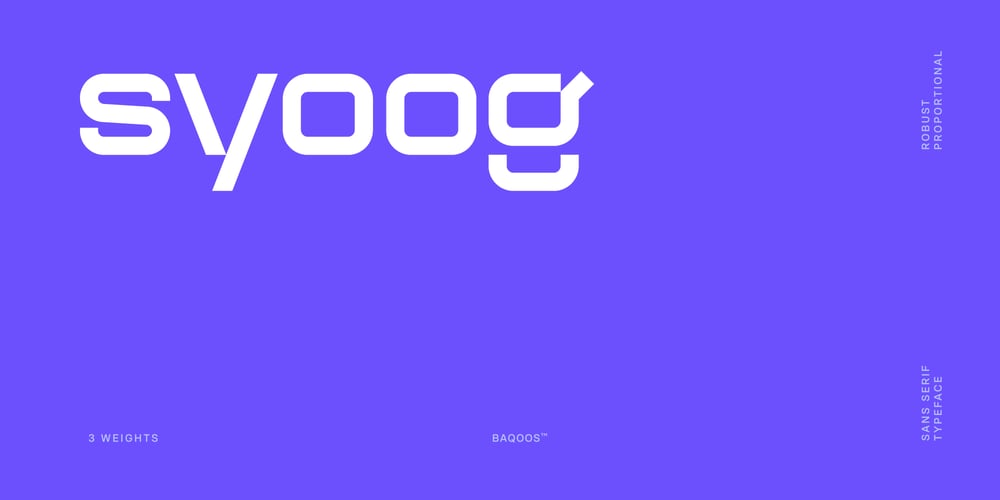
Syoog
Syoog font
Syoog Font Family was designed by Andrew Seah and published by Baqoos. Syoog contains 3 styles and family package options. Syoog is a robust proportional linear sans apt for headline, editorial, branding, packaging, printed materials and typographic applications. 240+ glyphs with ligatures and fractions available in opentype .otf format